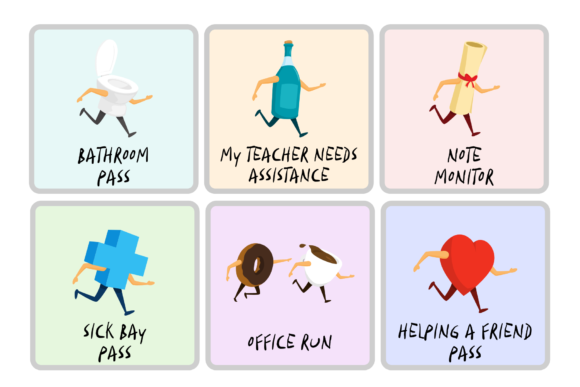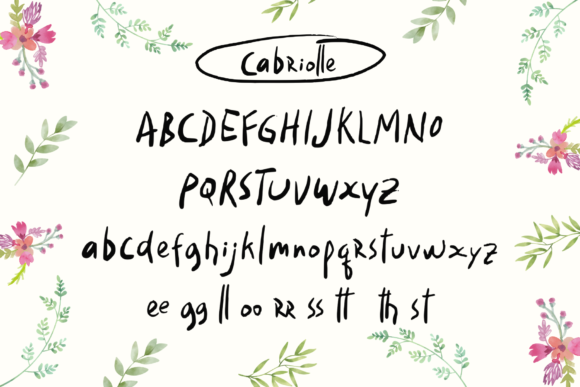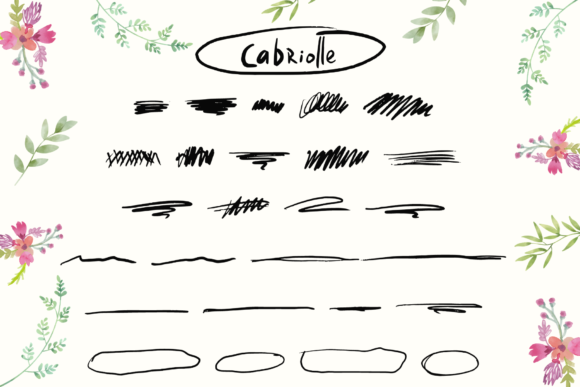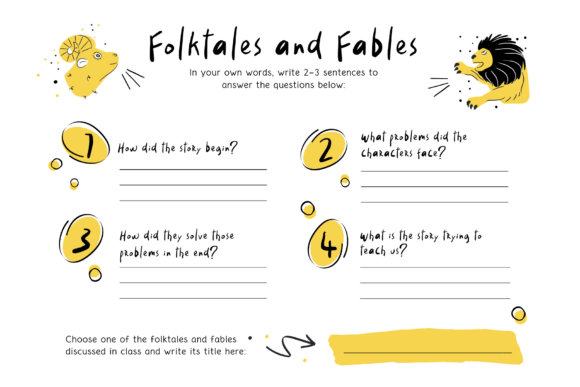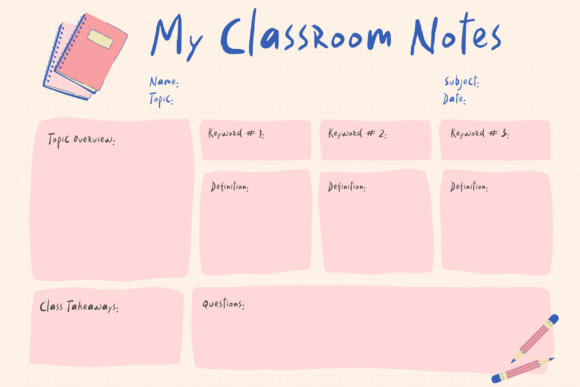
About Cabriolle Font
Cabriolle is a cool and trendy looking handwritten font. This font is PUA encoded which means you can access all glyphs and swashes with ease!